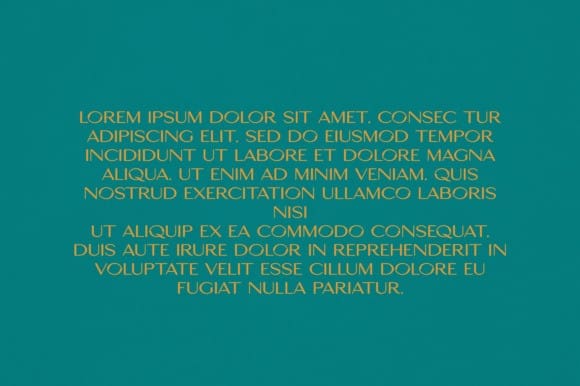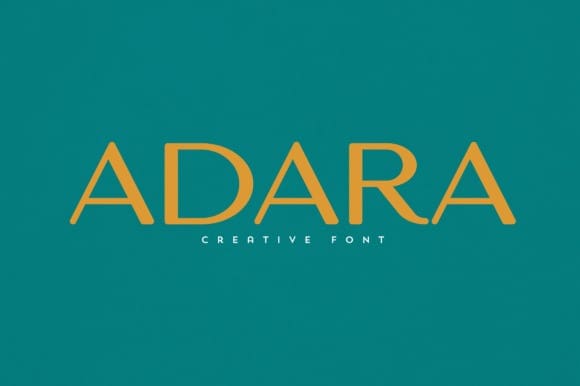
Adara Font
Adara Font is an elegant and versatile font that will make your typography truly unique! It will enchant every logo, branding, headline, or plain text!